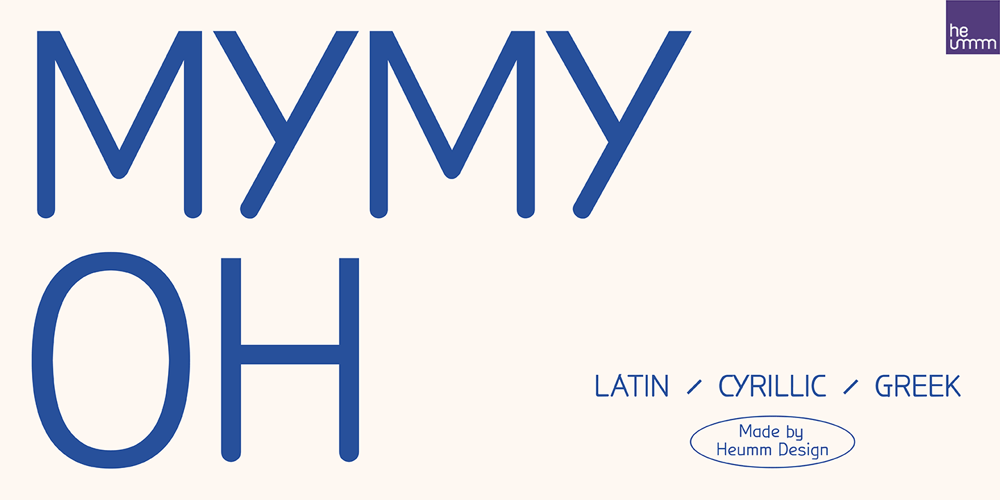
HU Mymyoh Font Family was designed by Rumi Kim and published by Heummdesign. HU Mymyoh contains 2 styles and family package options. EnglishHU Mymyoh is a cute handwritten typeface that can be used to express any lively or active moment. The alphabets are not aligned or evenly written but are crooked like scribble, which gives you funny and informal vibe.There are 2 weights of HU Mymyoh : Regular, SemiBoldGreekΤο HU Mymyoh είναι μια χαριτωμένη χειρόγραφη γραμματοσειρά που μπορεί να χρησιμοποιηθεί για να εκφράσει οποιαδήποτε ζωντανή ή ενεργή στιγμή.Τα αλφάβητα δεν είναι ευθυγραμμισμένα ή ομοιόμορφα γραμμένα, αλλά είναι στραμμένα σαν σκαρίφημα, κάτι που σας δίνει αστεία και ανεπίσημη ατμόσφαιρα.Υπάρχουν 2 βάρη του HU Mymyoh : Regular, SemiBoldCyrillicHU Mymyoh – это симпатичный рукописный шрифт, которым можно обозначить любой живой или активный момент.Алфавиты не выровнены и написаны неравномерно, они изогнуты, как каракули, что создает забавную и неформальную атмосферу.HU Mymyoh имеет 2 толщины : Regular, SemiBold